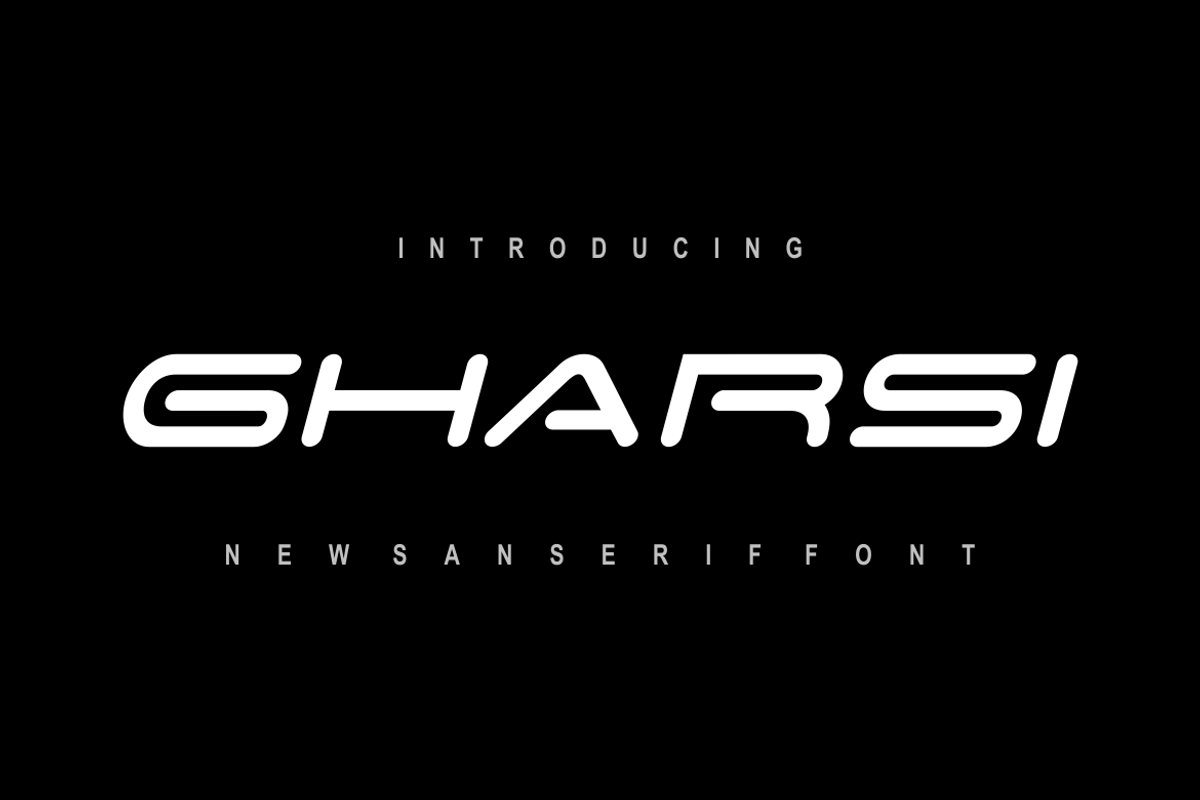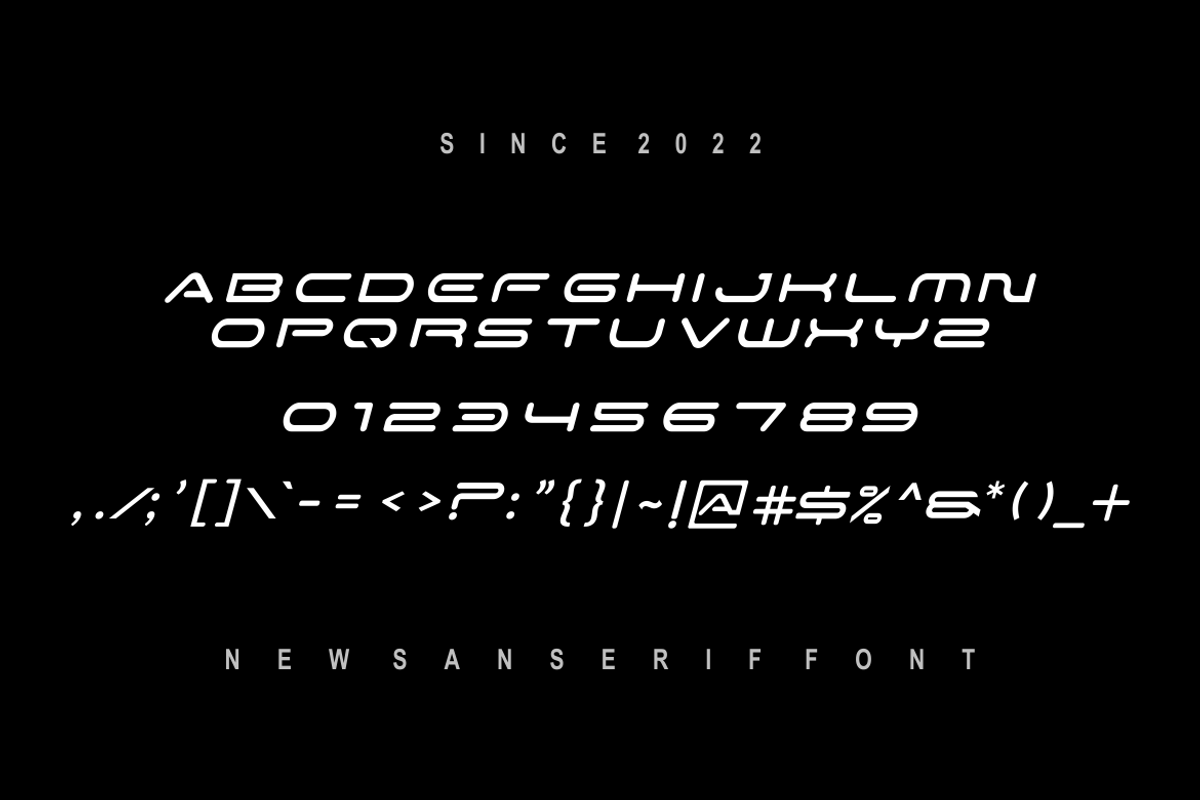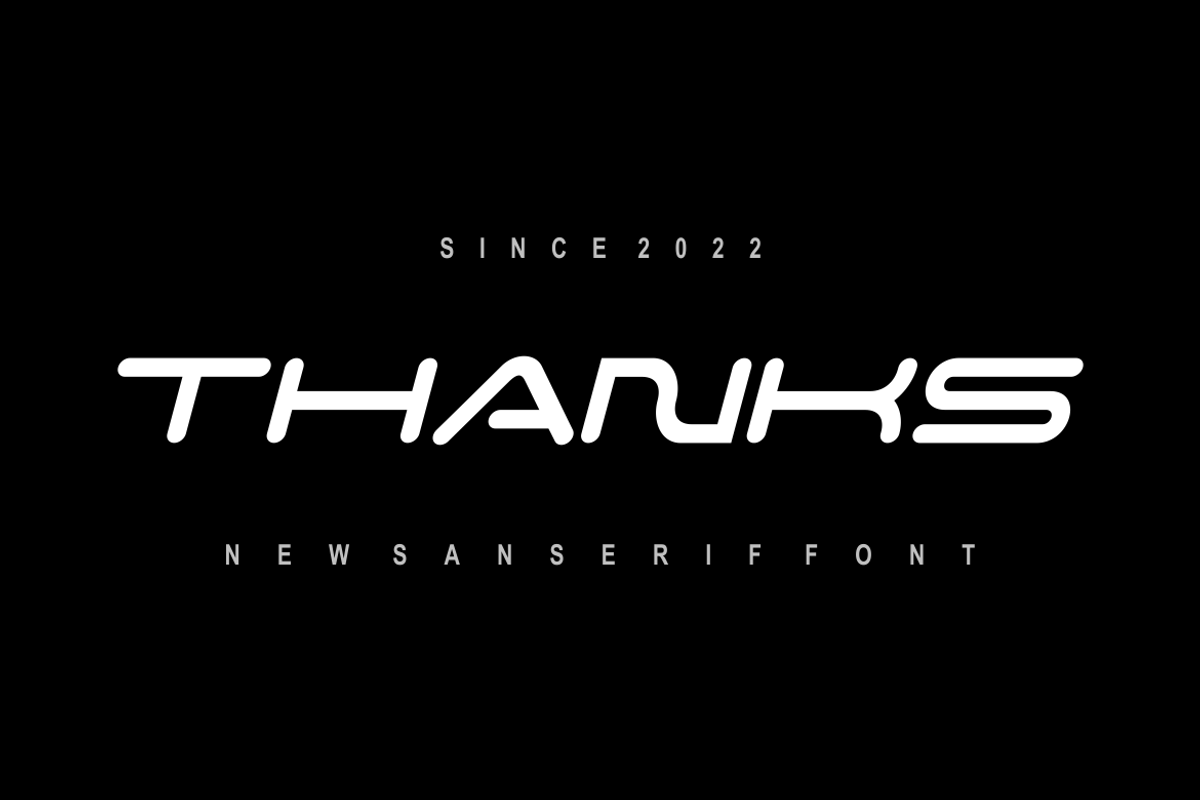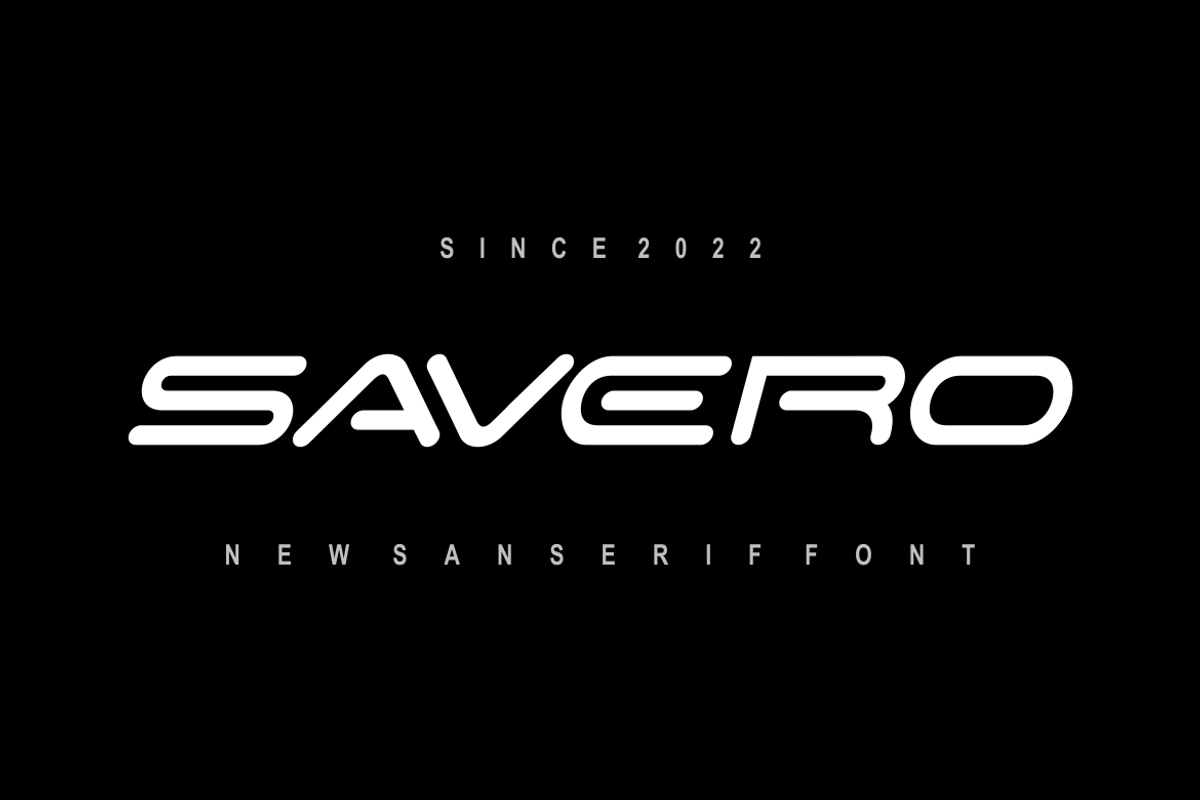
Gharsi Sanserif Font
Introducing our new product Gharsi Font - Modern Font
Gharsi Font - Modern Font is a bold and authentic display font. The font is suitable for any branding project like logo, t-shirt printing, esport, and many more. outstanding in a wide range of contexts.